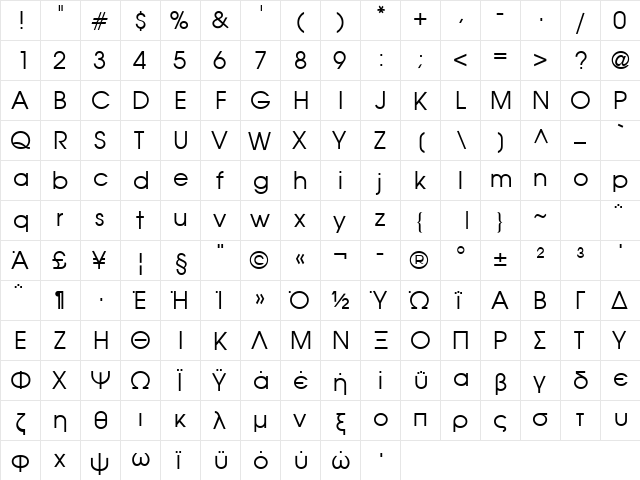
AvantGreek Plain
Design Context for AvantGreek Typeface
AvantGreek takes a measured approach to typography — its balanced proportions and neutral character make it a reliable workhorse for both digital and print work.